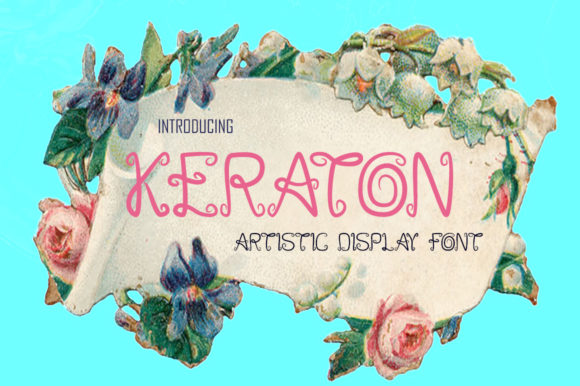
Introducing Keraton: The Display Font That Will Make Your Designs Pop!
Get ready to add a touch of whimsy and joy to your designs with Keraton, the incredibly cute and quirky display font that will steal the show. Whether you're crafting eye-catching headlines, captivating social media posts, or designing stunning posters, Keraton will transform your words into works of art.
With its playful personality and charming curves, Keraton is perfect for adding a touch of fun and excitement to any project. Imagine your designs blossoming with a sprinkle of magic, capturing the attention of your audience and leaving a lasting impression.
But Keraton isn't just about aesthetics; it's also incredibly versatile, adapting seamlessly to a wide range of design styles. From bold and vibrant to soft and delicate, Keraton has the power to elevate your creations to new heights.